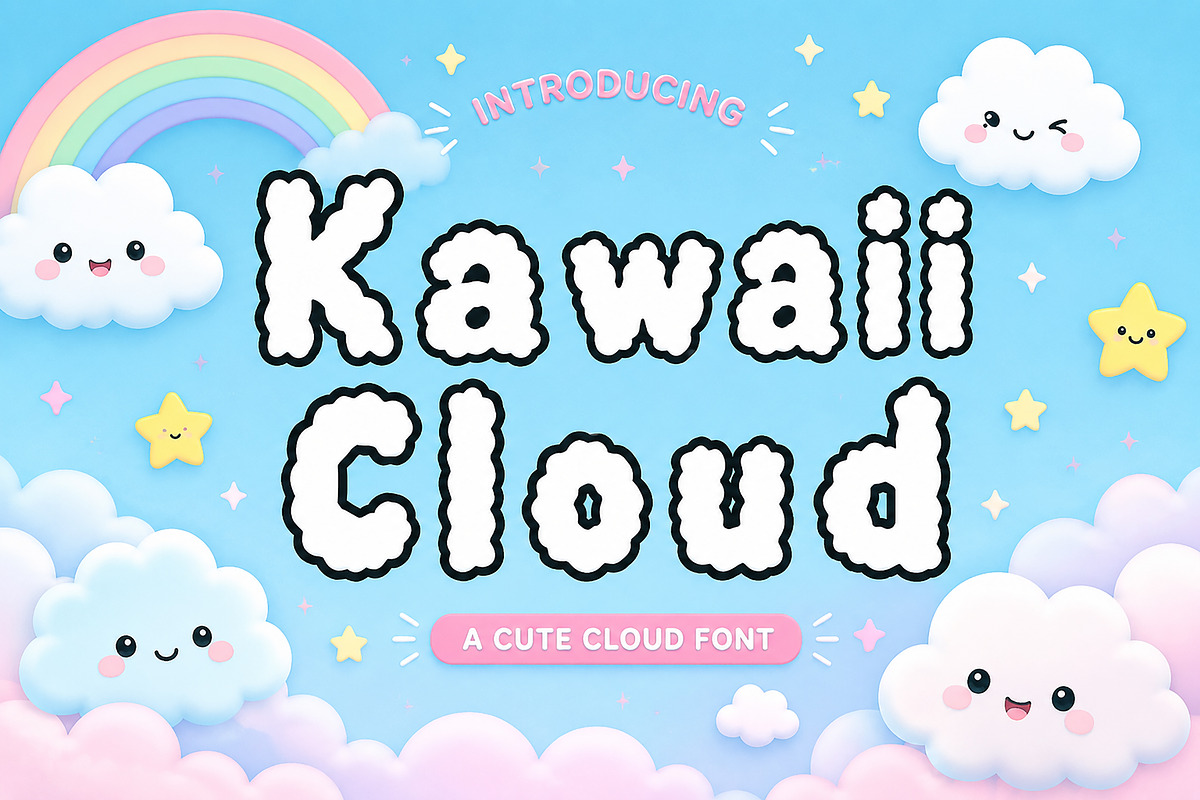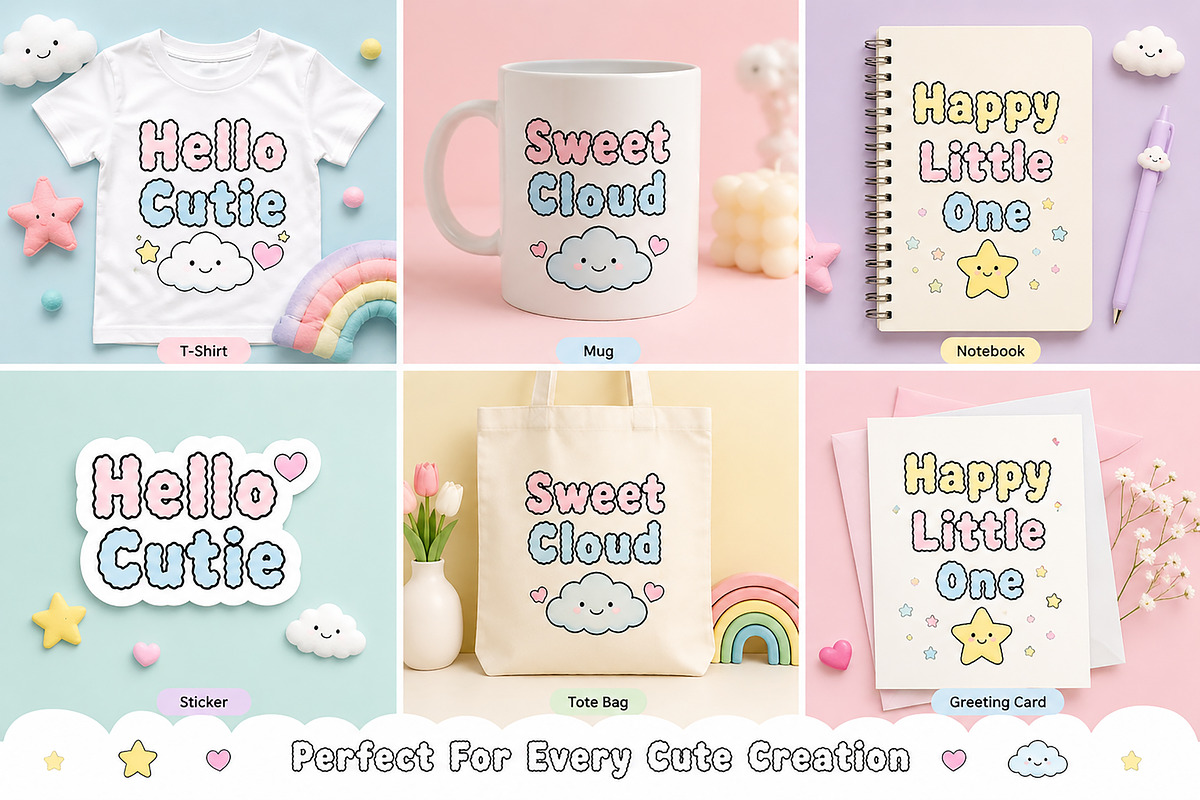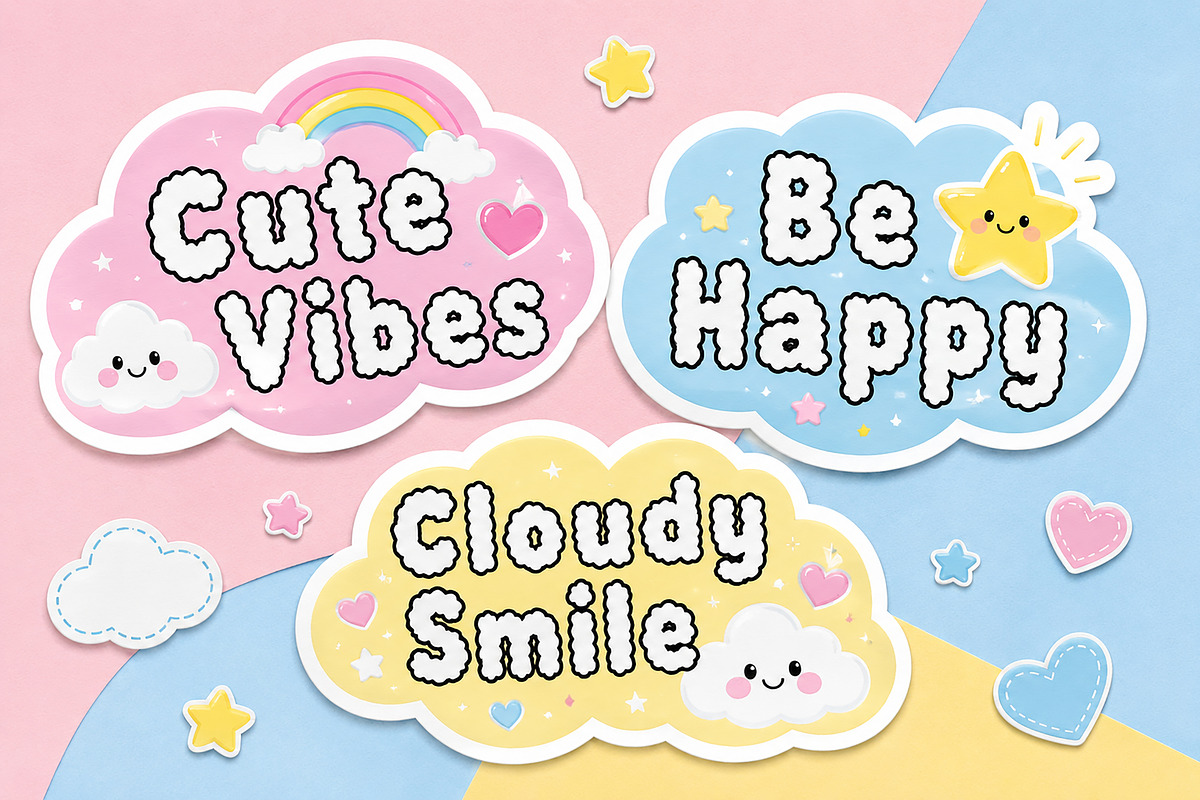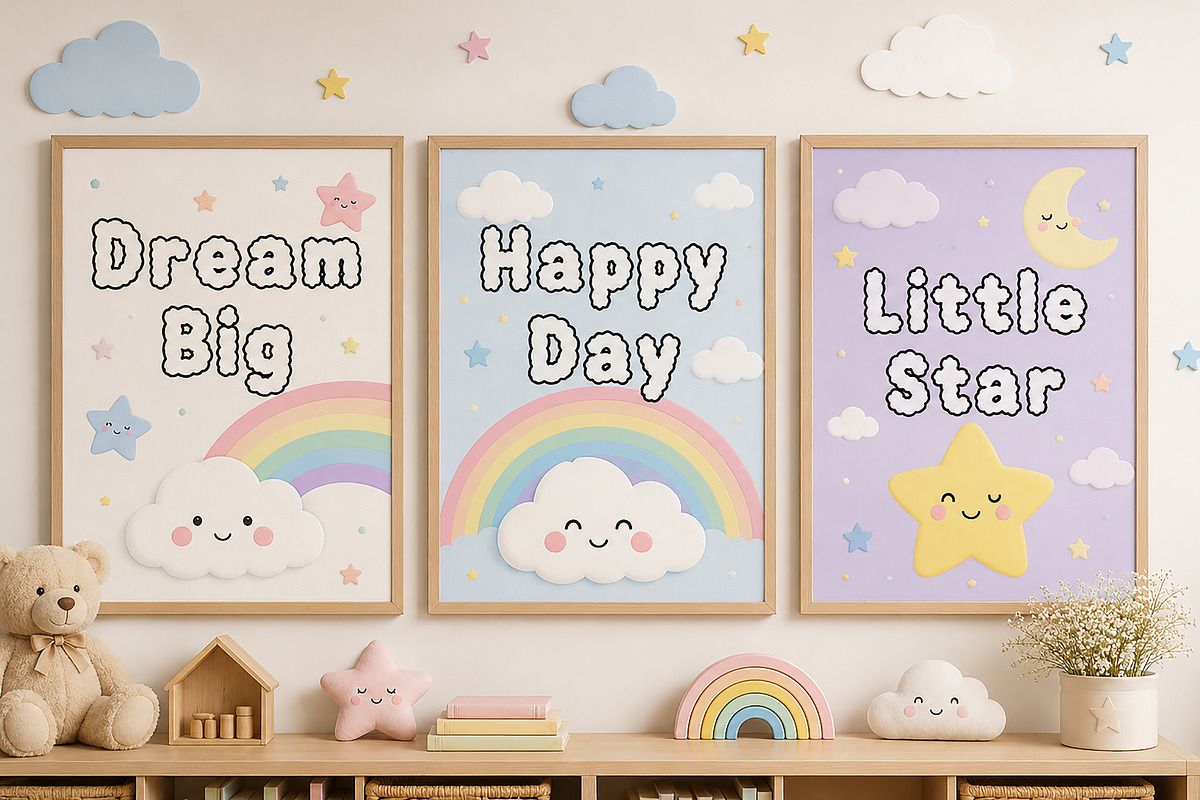
Kawaii Cloud
Kawaii Cloud – Cute Kids Display Font
Kawaii Cloud is an adorable and playful display font inspired by fluffy clouds, dreamy skies, and kawaii aesthetics. Featuring soft, puffy letterforms with a charming hand-drawn feel, this font is perfect for creating cute and cheerful designs that instantly stand out.
Whether you're designing for kids, nursery decor, stickers, Cricut projects, sublimation products, greeting cards, party invitations, social media graphics, or playful branding, Kawaii Cloud adds a sweet and whimsical touch to every project.
Its unique cloud-like shapes make it ideal for creating fun, friendly, and eye-catching typography that appeals to children, parents, crafters, and creative entrepreneurs alike.
Kids Branding
Nursery Wall Art
Stickers & Cricut Projects
Sublimation Designs
T-Shirts & Apparel
Greeting Cards
Birthday Invitations
Baby Shower Designs
Scrapbooking
Printable Quotes
Cute Logos & Packaging
Classroom Decorations
Toy Store Branding
Cute Cloud-Inspired Design
Bring a little happiness, creativity, and dreamy charm to your next project with Kawaii Cloud!